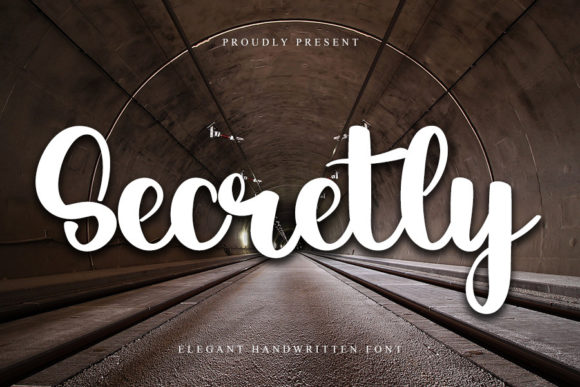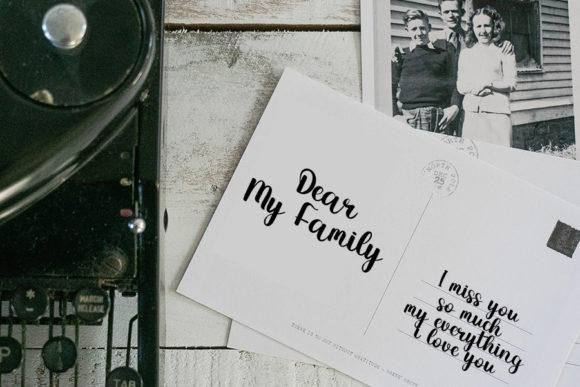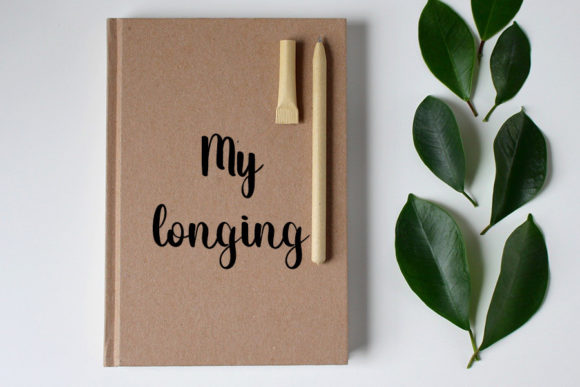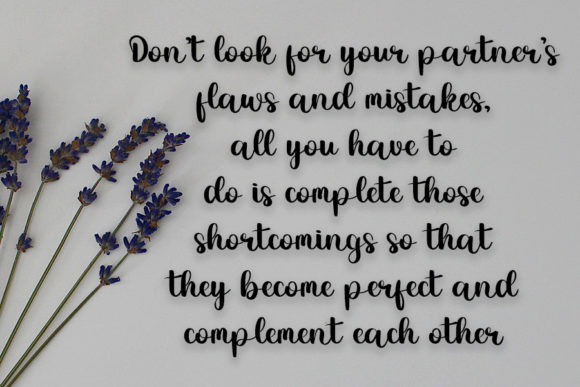
About Secretly Font
Secretly is a chic handwritten font with an impeccable form, inspired by a timeless calligraphy. Balanced and varied, this font was designed to enhance the beauty of your projects.